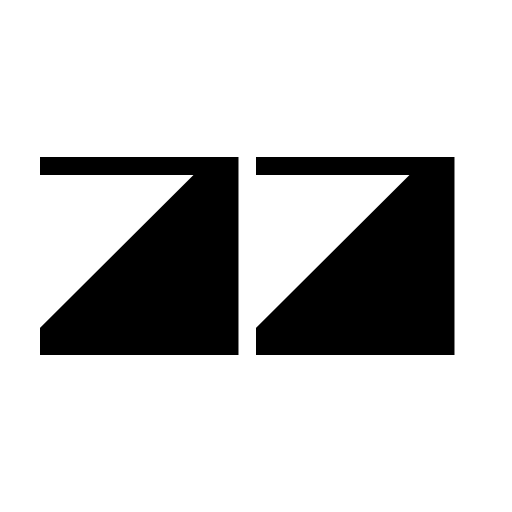
AusPROBE is a bold, condensed sans serif font with a futuristic and sporty vibe, featuring strong geometric shapes and angled, italicized letterforms that suggest motion and speed. Its high contrast between thick strokes and sharp edges, along with a distinctive slanted style, makes it ideal for dynamic headlines, logos, and branding in tech, automotive, or sports industries. This font stands out with its modern energy and sleek design, perfect for projects needing a modern, energetic, and bold visual impact.
AusPROBE Font